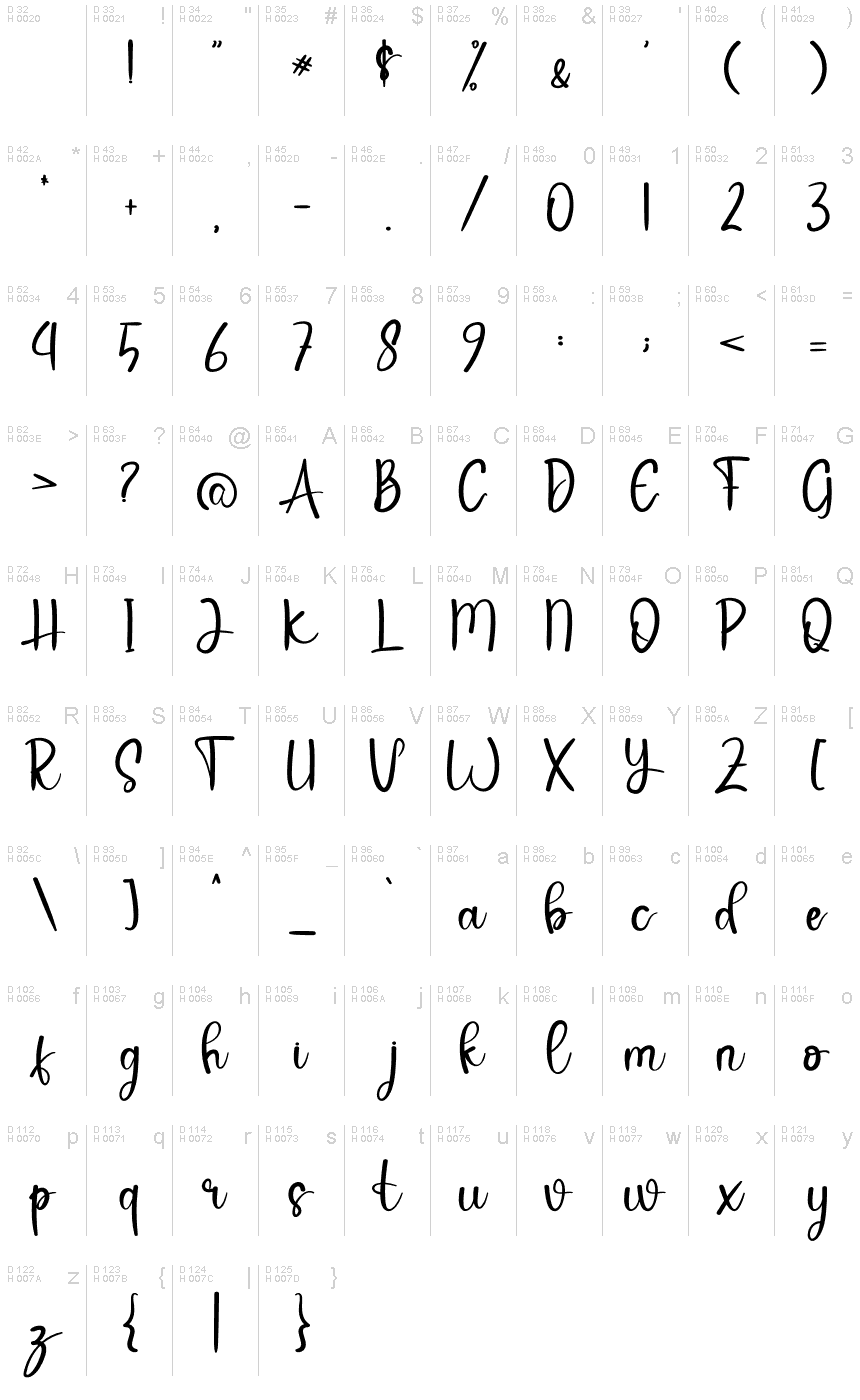
Airin
Airin, designed by Etik Fatimah, is a font that stands out with its semi-light weight and handwritten style. The elegance of Airin lies in its organic flow and subtle variation in stroke thickness that mimics the beauty of natural handwriting. This typeface boasts a casual yet sophisticated charm that makes it highly versatile for various creative endeavors.
The aesthetic appeal of Airin is evident in its clean lines and unforced form, which convey a sense of personal touch and warmth. The semi-light weight ensures that the text remains legible while providing a gentle, airy presence on the page. This balance between readability and stylistic flair makes Airin an excellent choice for branding, editorial design, invitations, and any project that requires a touch of individuality without sacrificing clarity.
Embrace the delightful character of Airin to infuse your designs with a handcrafted essence that resonates with contemporary tastes while retaining an intimate appeal.